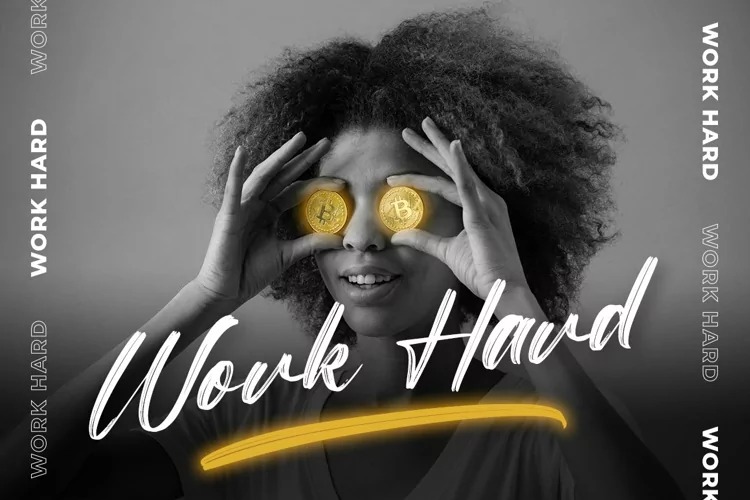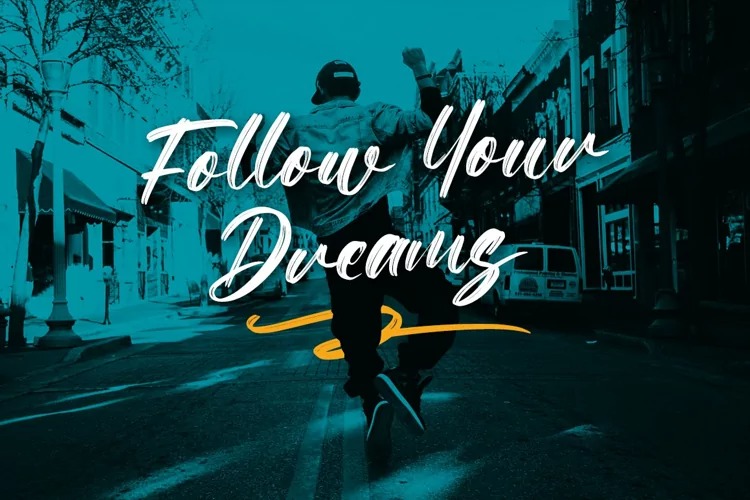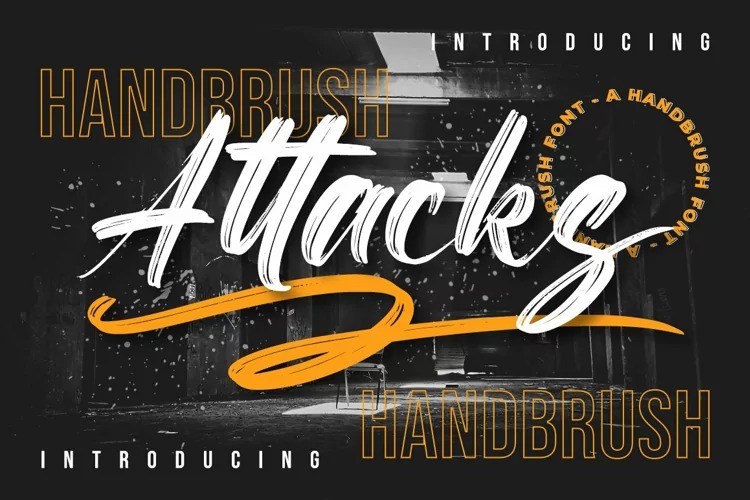
Attacks Brush Font
This is a creative brush typeface has many purpose and suitable for graffiti, urban street, workouts, gym items, classic modern, logotype, advertising and much more. Fall in love with its incredibly distinct and timeless style and use it to create spectacular designs!